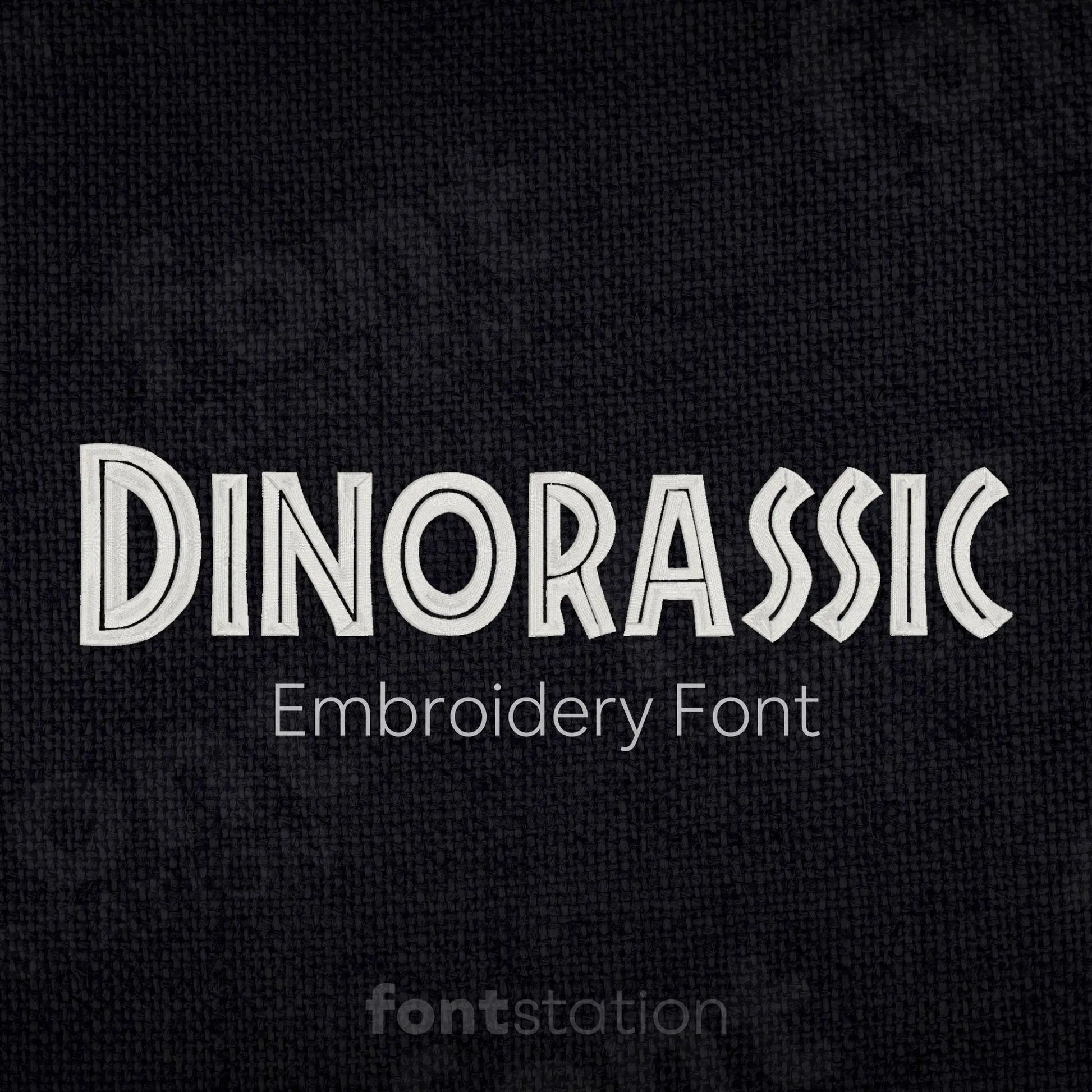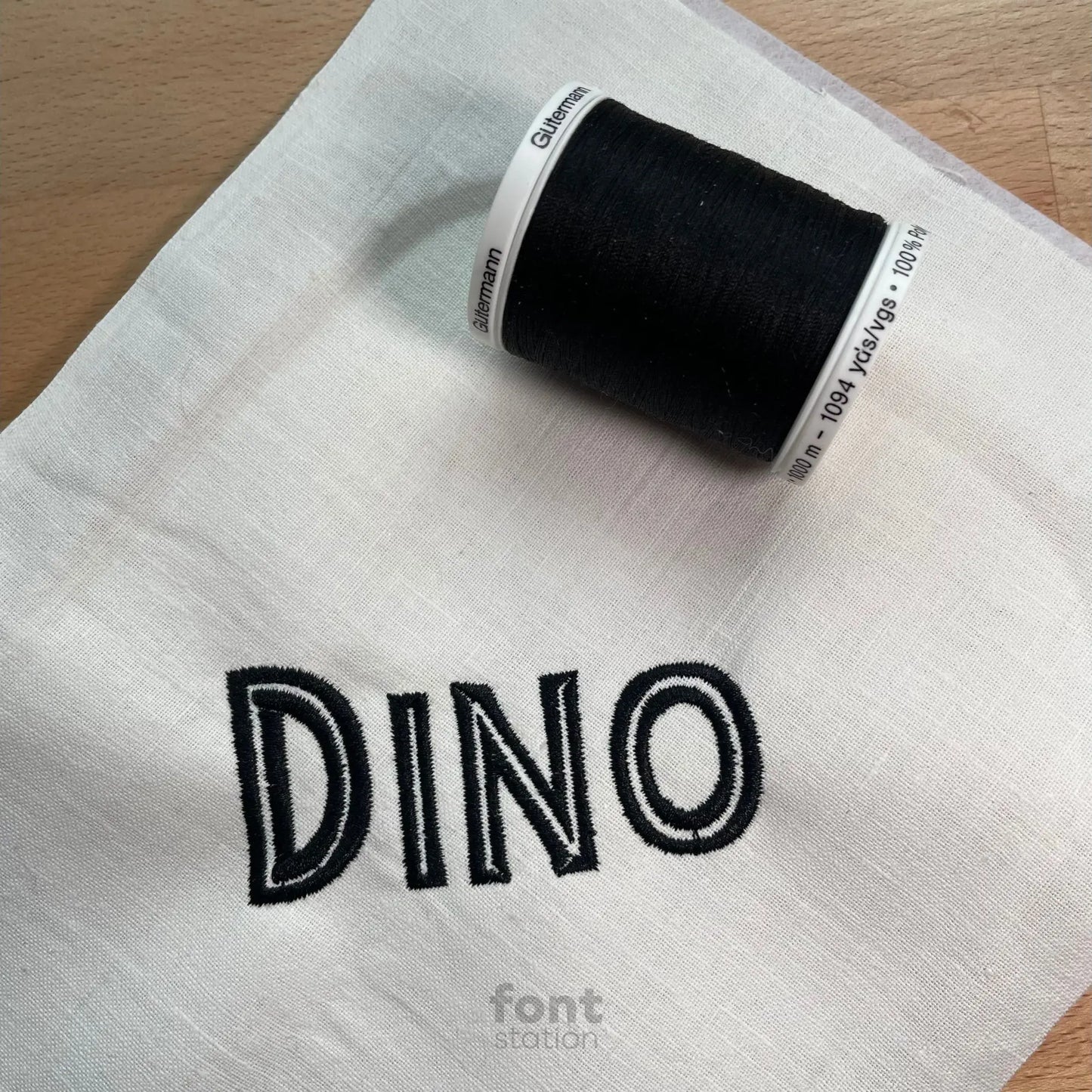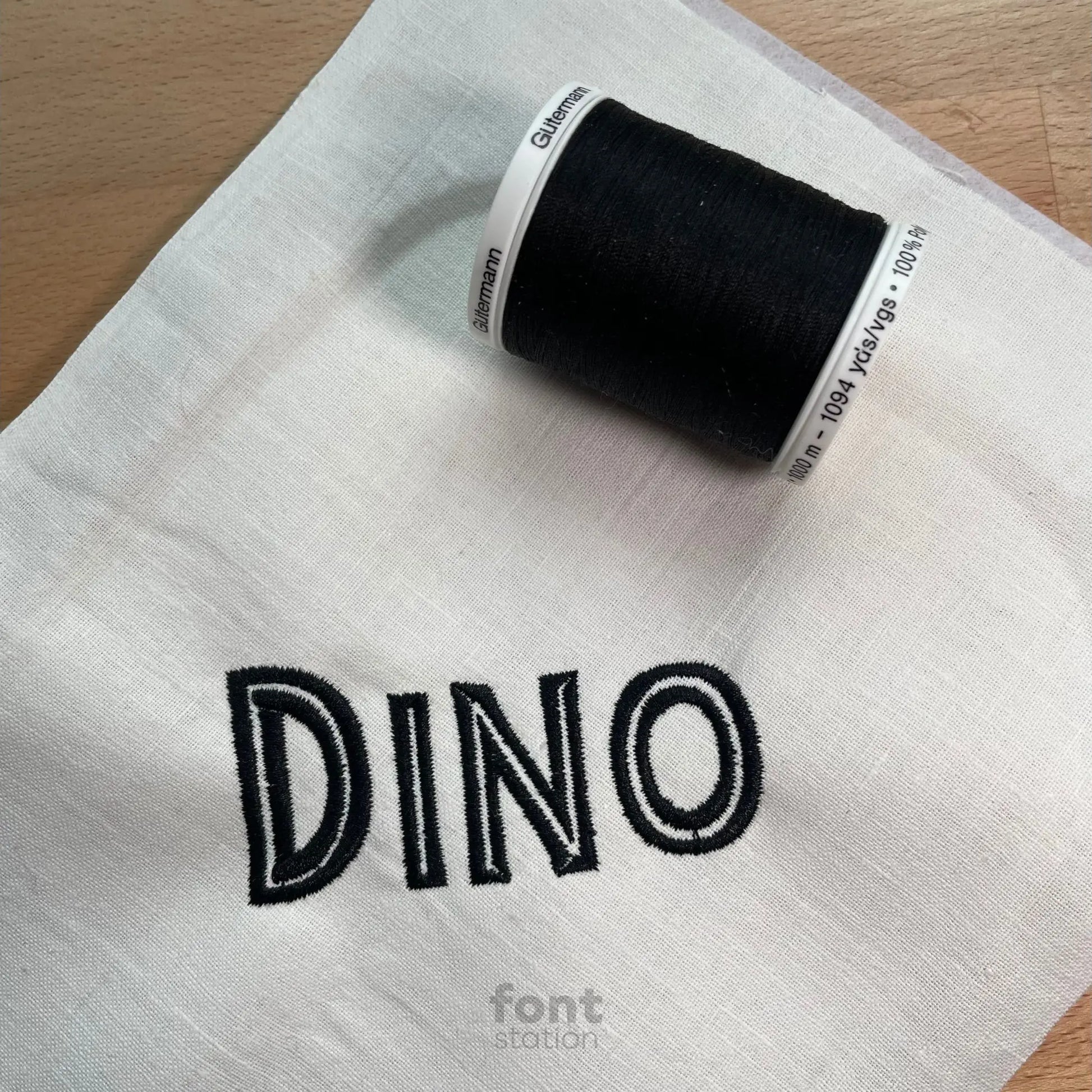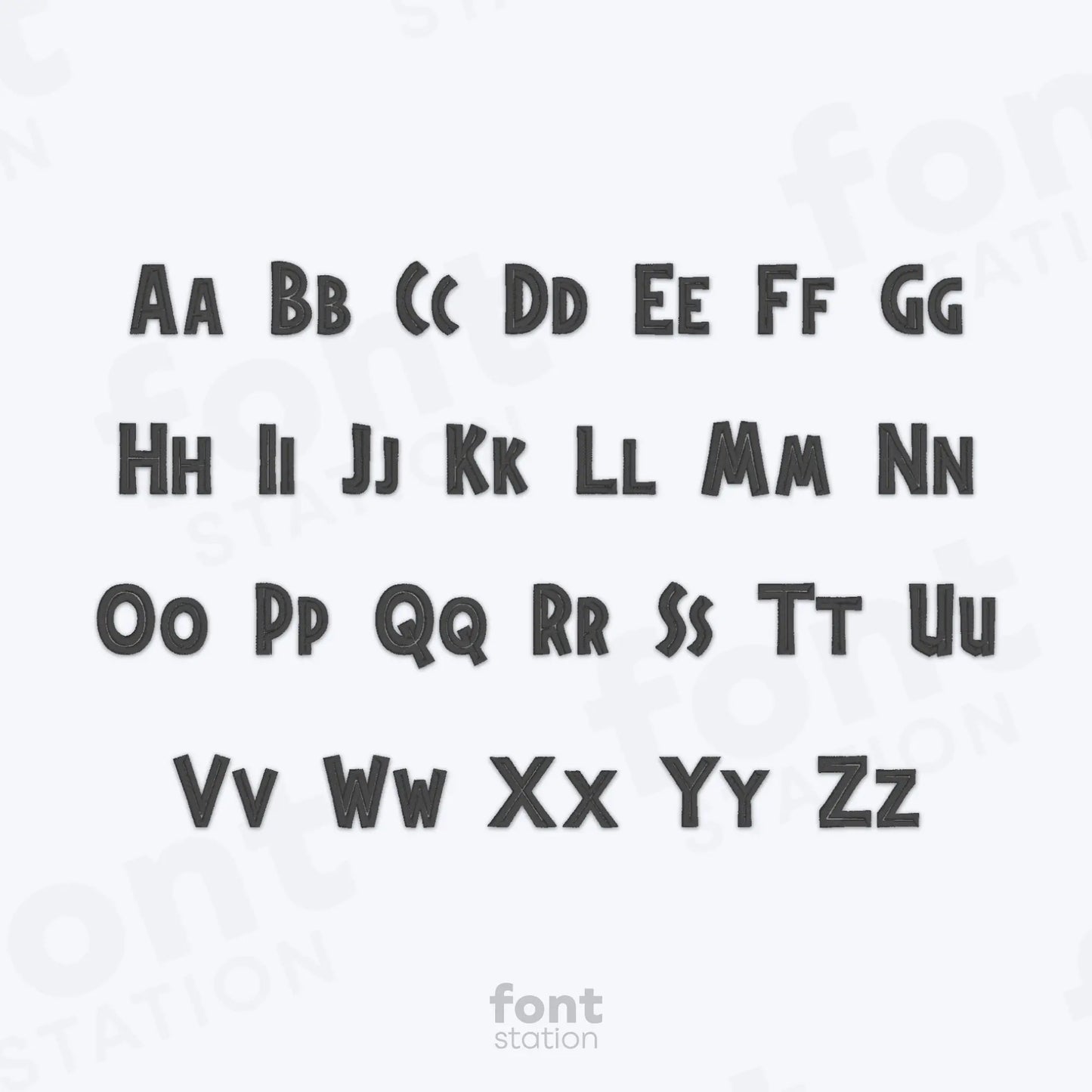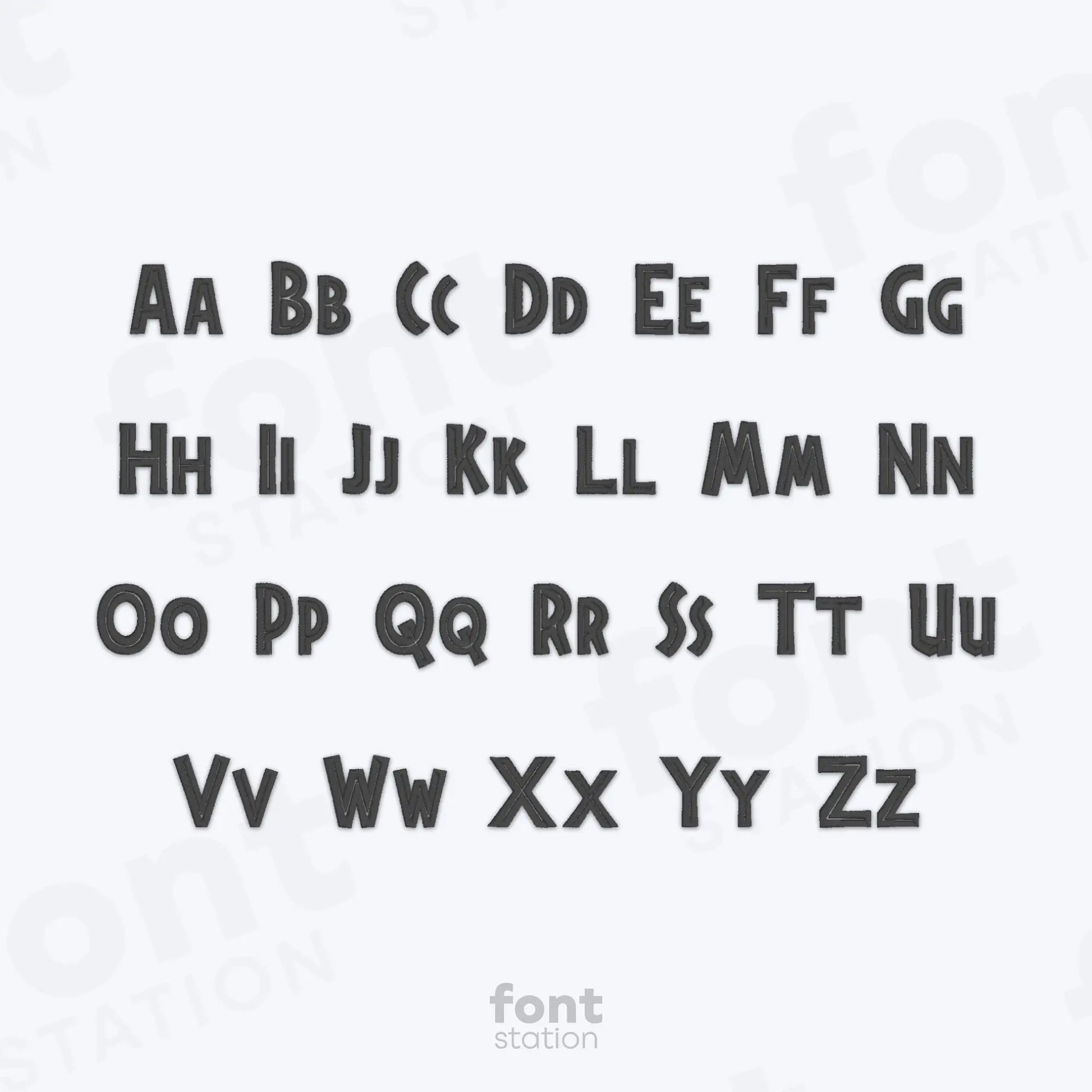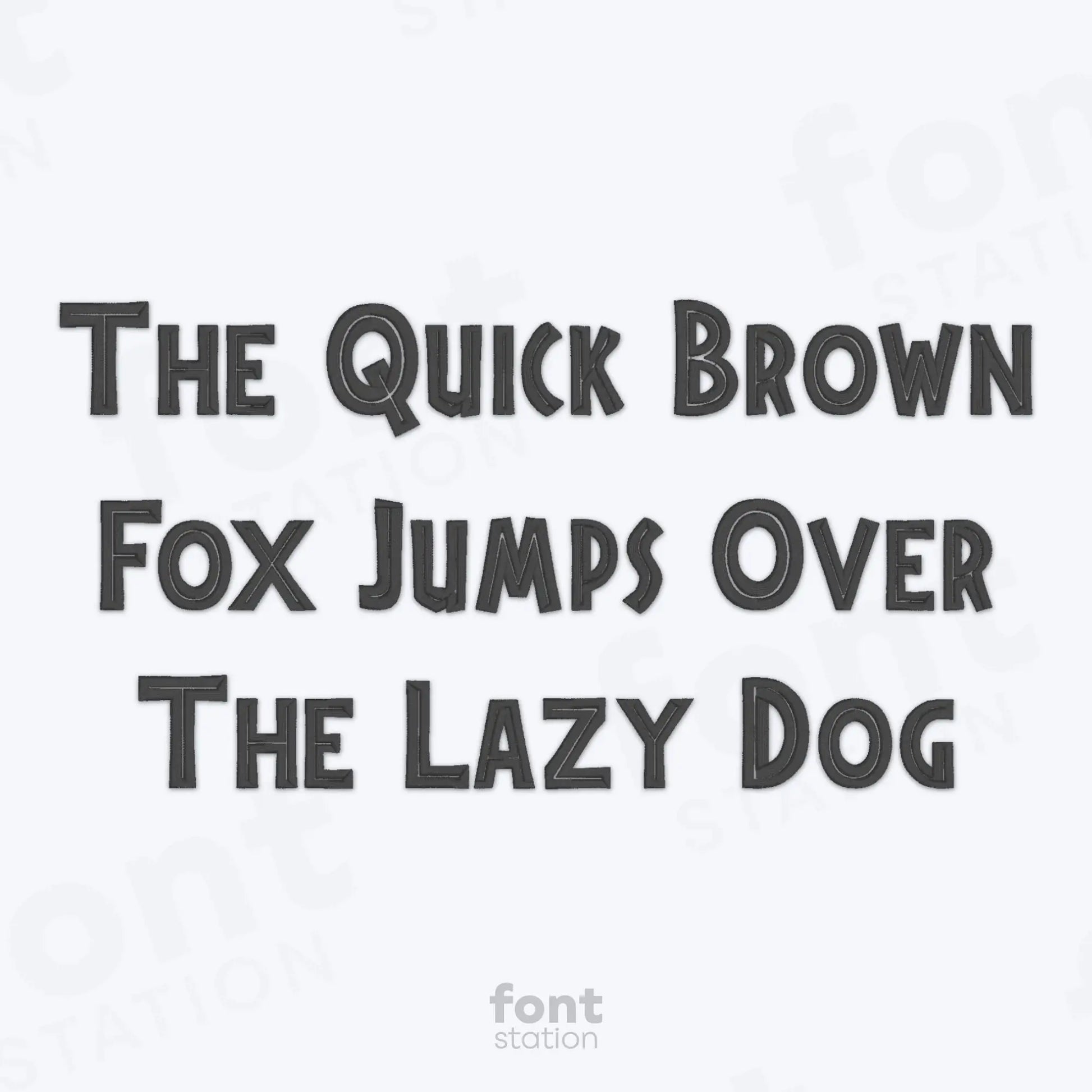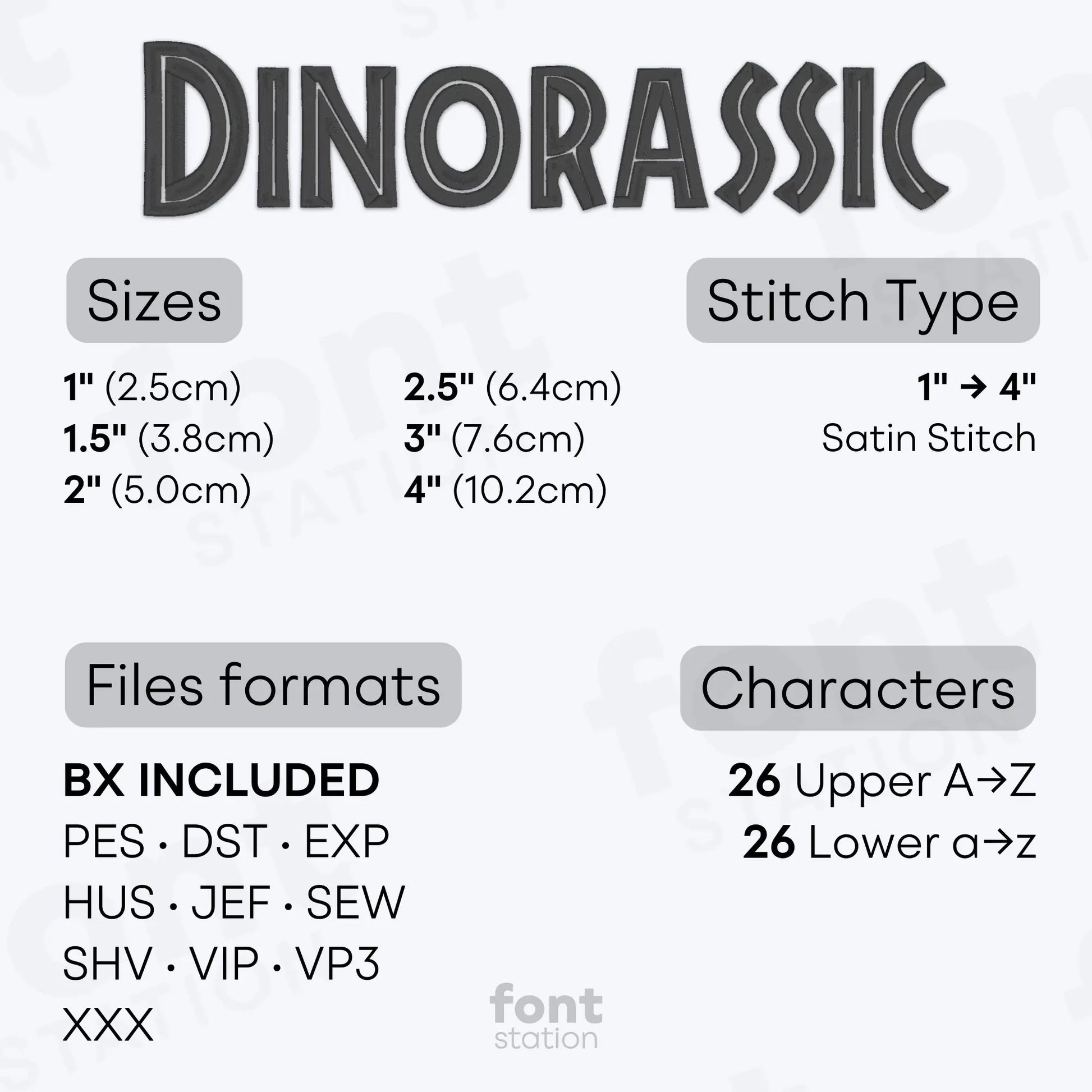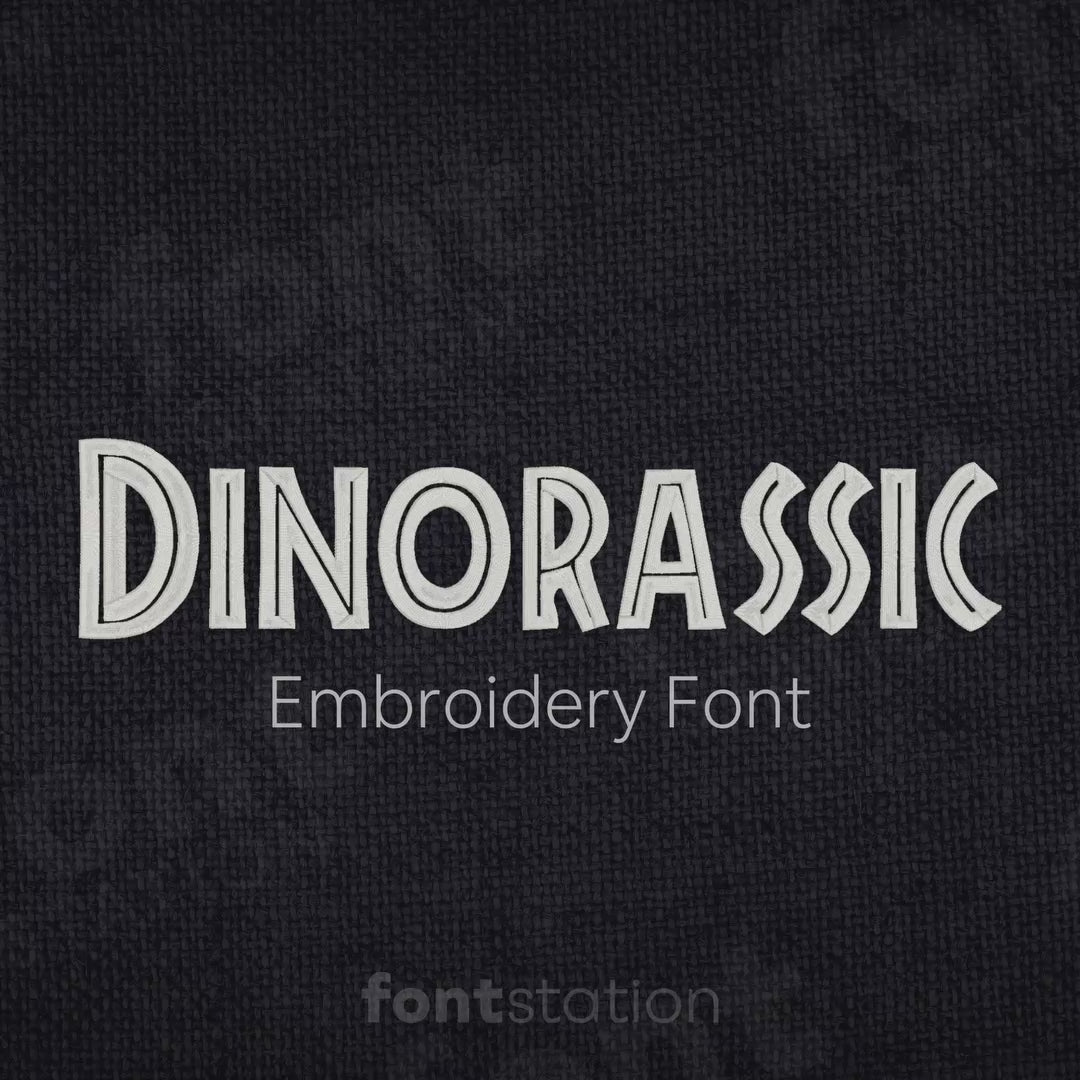
Dinorassic Embroidery Font
Introducing our Dinorassic embroidery font - a bold, prehistoric alphabet perfect to stitch dino-style letters on your next fun project. These decorative designs work great with your embroidery machine and bring a Jurassic vibe to kids’ gifts, party decor, and playful creations.
About the Dinorassic Embroidery Font
Our Dinorassic embroidery font brings prehistoric fun and bold style to your embroidery designs.
The Dinorassic embroidery font features a bold, decorative alphabet inspired by Jurassic-era themes and dinosaur flair. These eye-catching embroidery letters are perfect for kids’ names, birthday shirts, school projects, and dino-themed gifts. With clean lines and strong shapes, this embroidery font stitches smoothly on any embroidery machine. Formats include BX, PES, DST, JEF, EXP, VP3, HUS and more—making it a fun and versatile choice for your next dinosaur-inspired creation.